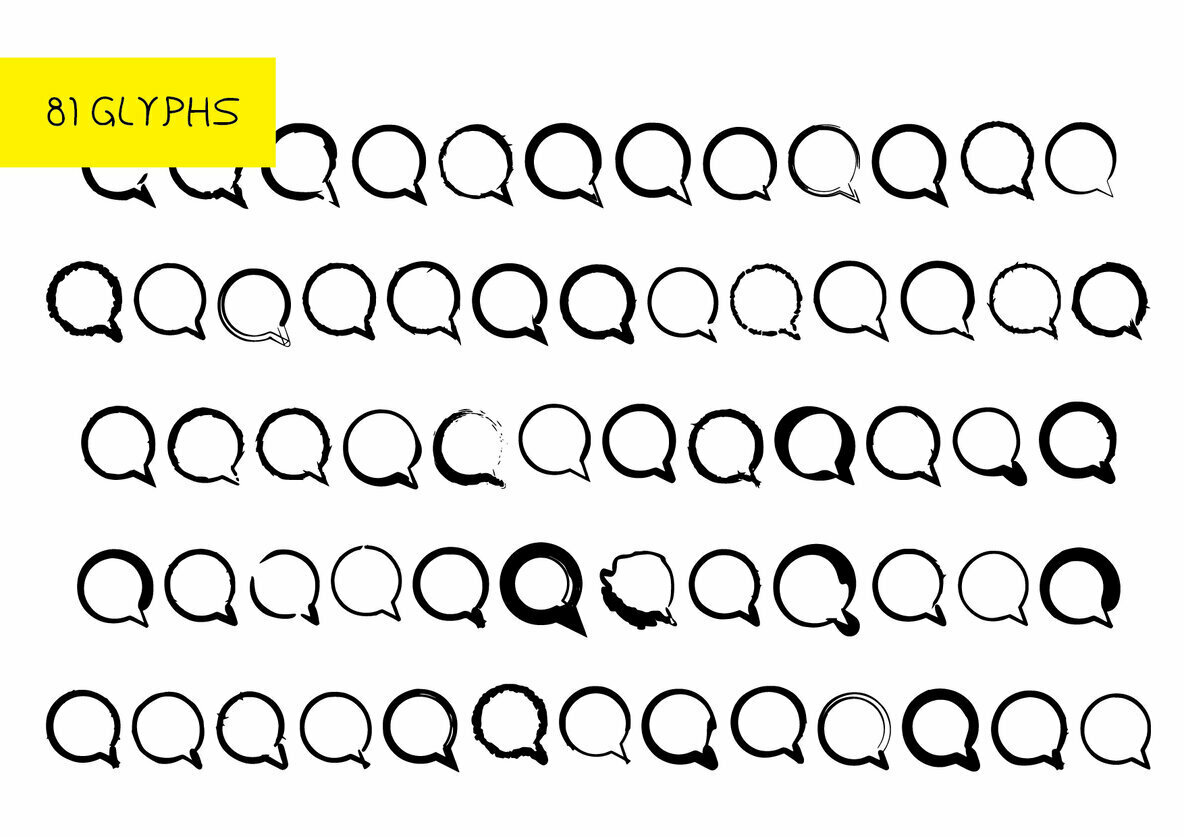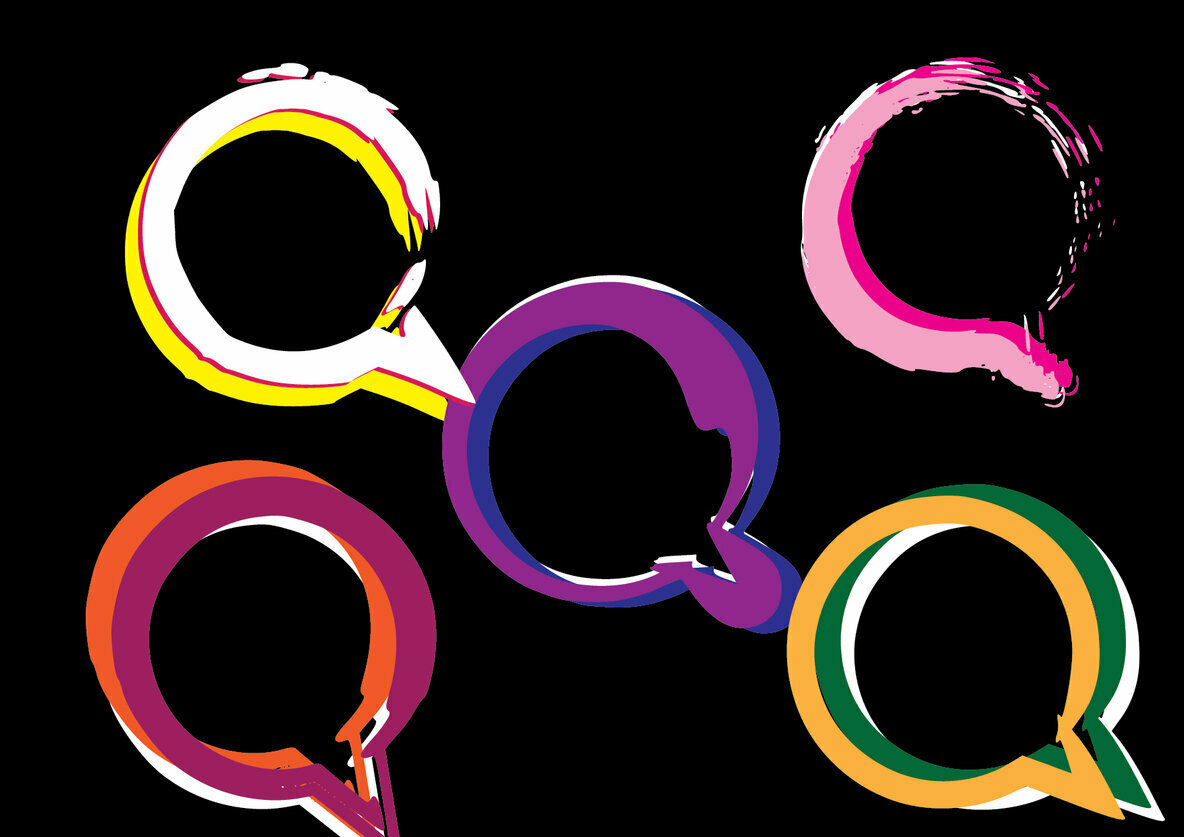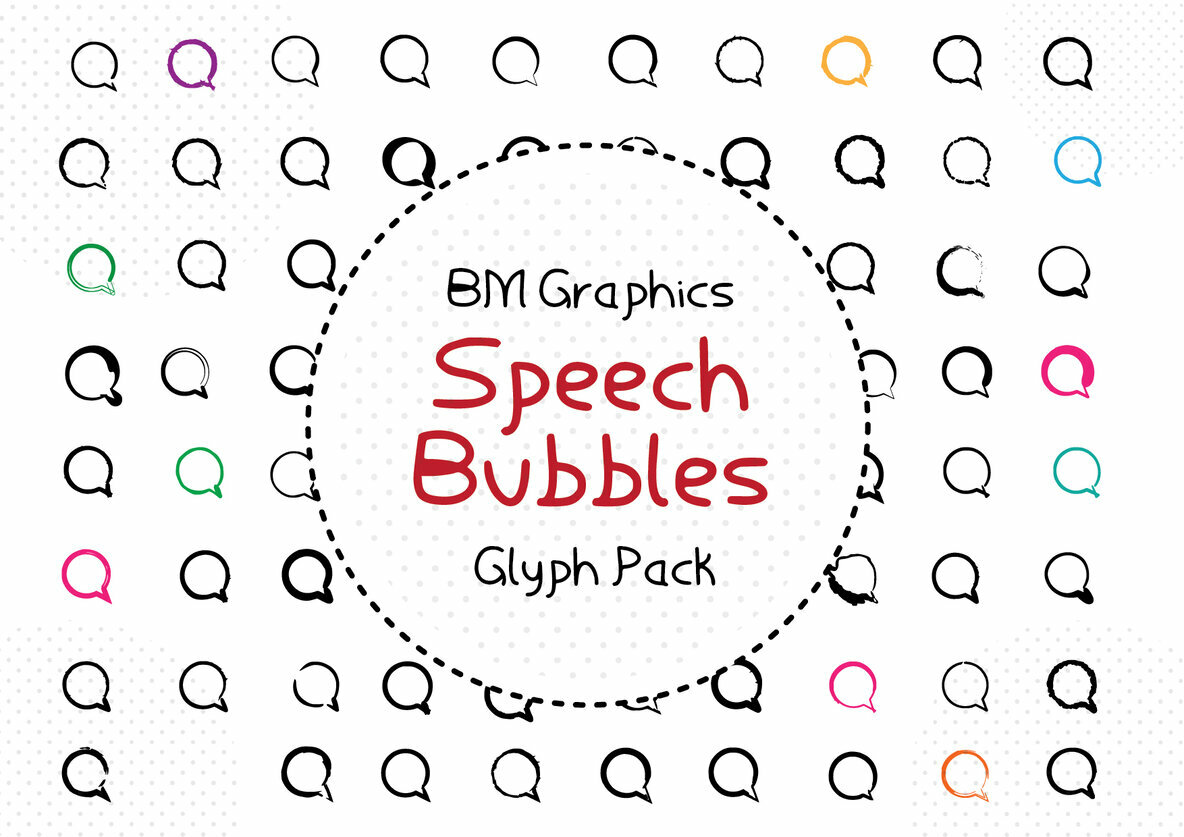
BM Graphics - Speech Bubbles is a stunning dingbats font that combines 81 Glyphs. Use it for any design project that requires a hand drawn look and feel, there are so many to choose from!